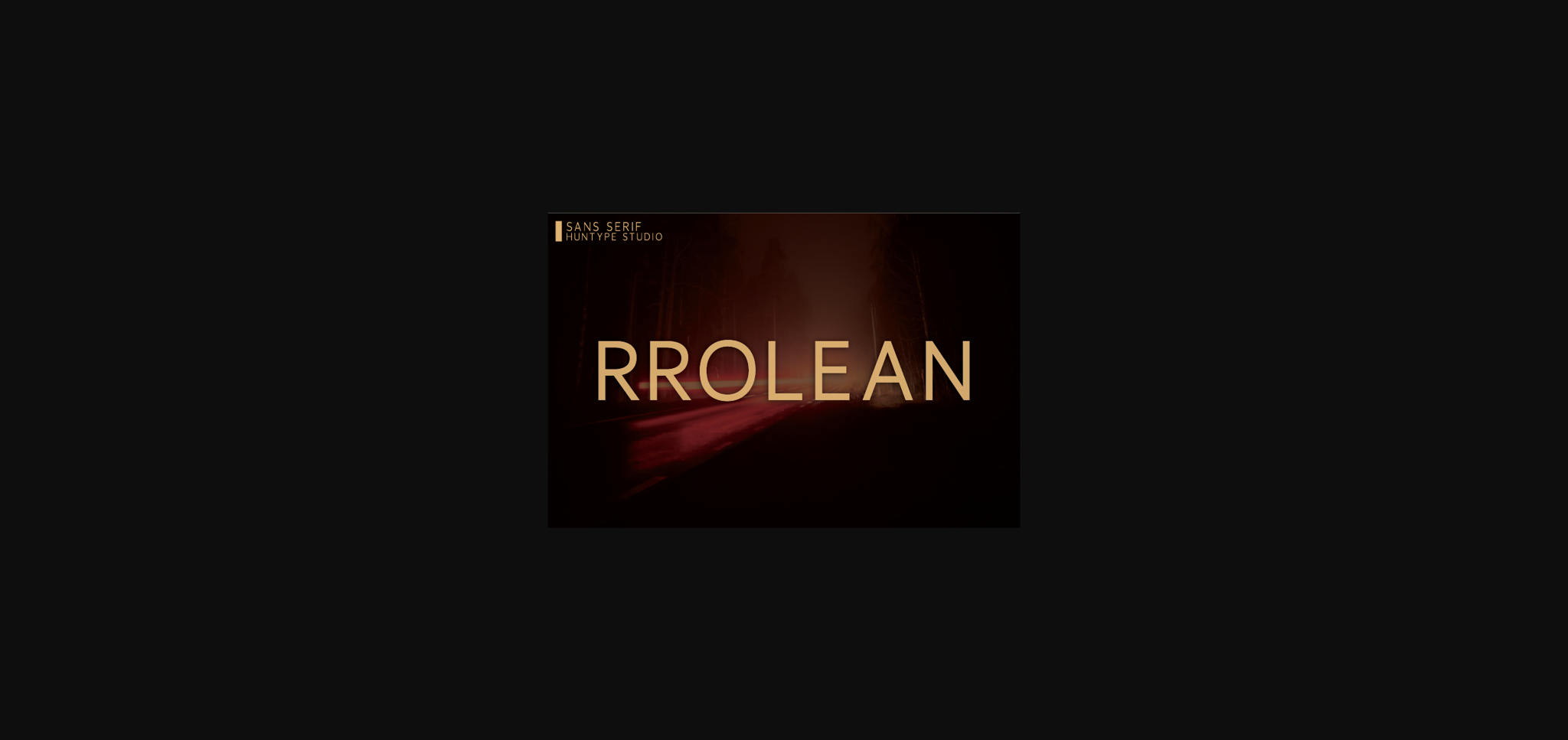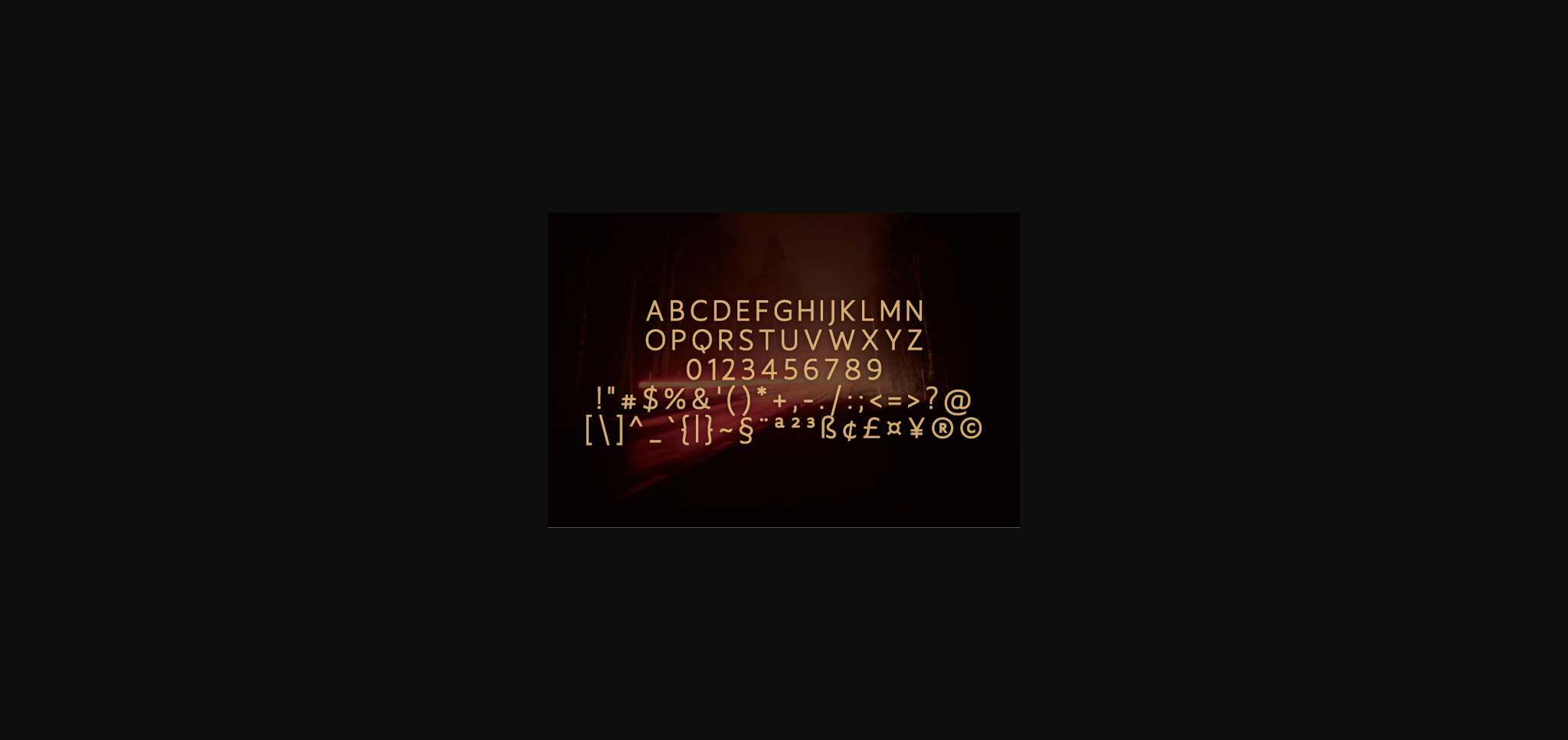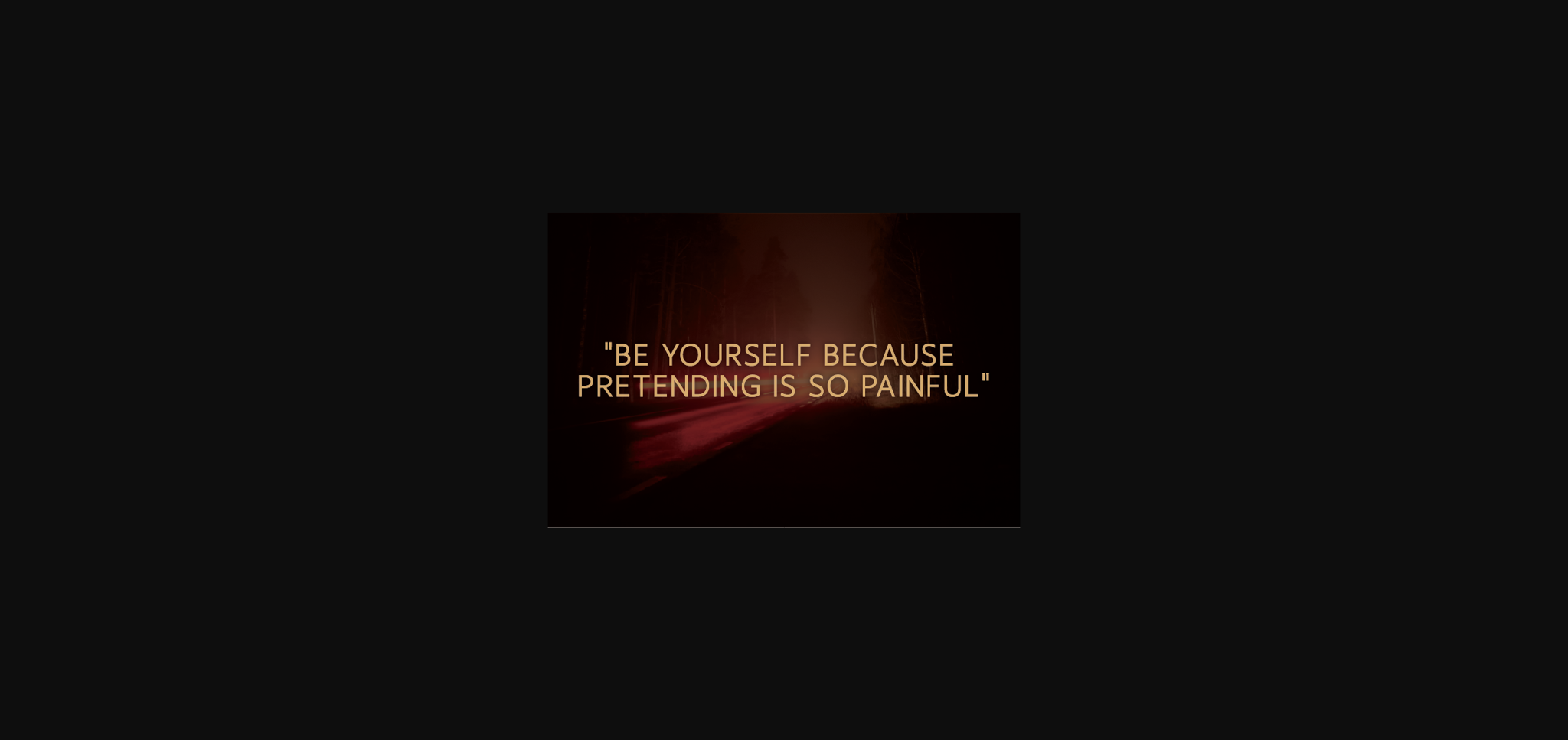
Rrolean Font
About Rrolean Font
Rrolean is a thin and clean lettered sans serif font. It is ideal for any branding, product packaging, invitation, quote, t-shirt, label, poster, logo that you wish to create.